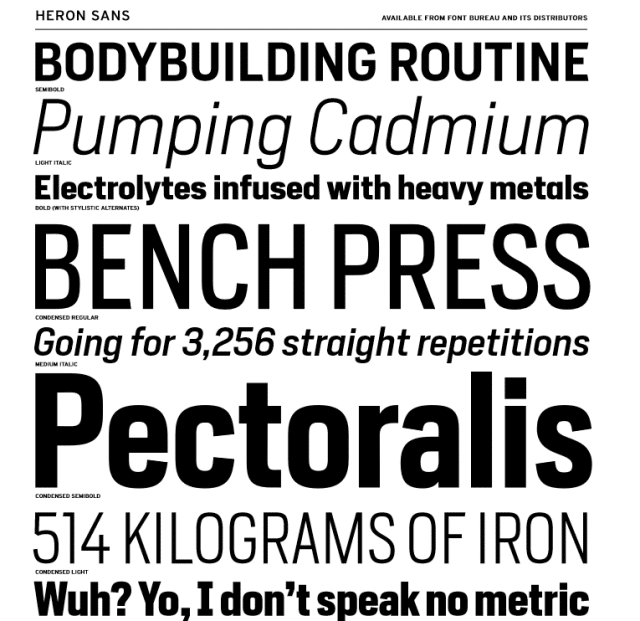
Steadfast and no-nonsense, Heron is always ready to go to work. It began with a Joe Heroun commission for Men’s Health inspired by industrial, machine-made letters.
Unlike other type with mechanical influences, Heron is a refined, versatile family, capable of doing the job in both headlines and small text. Heron Serif and Sans are born of hard iron and steel, but galvanized with Cyrus Highsmith’s warmth and energy.